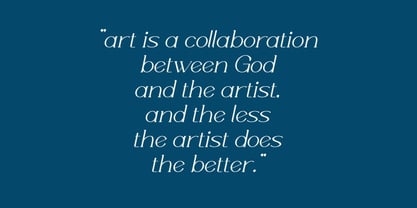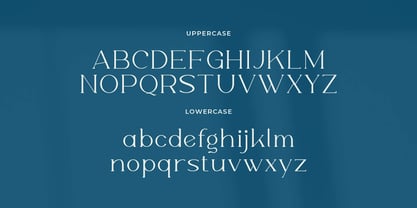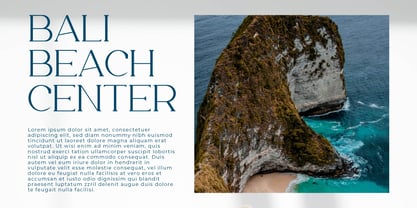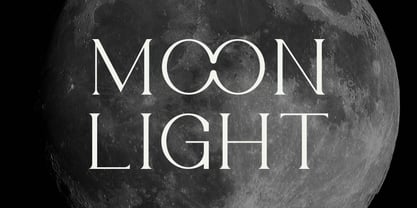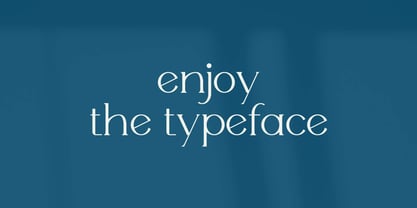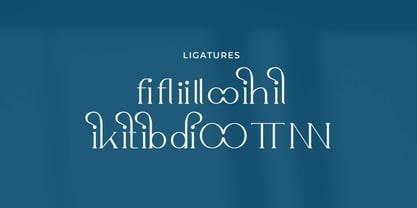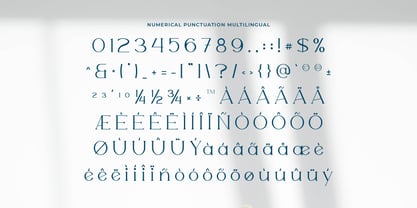
Willy Moody
by Artiveko
The Willy Moody Font Family was designed by Iwan Alwan and published by Artiveko. Willy Moody contains 2 styles and family package options. More about this family
Willy Moody is a delicate minimalist serif font designed to express elegance through simplicity. With soft curves, slender strokes, and thoughtful spacing, this typeface captures a calm, graceful tone — perfect for feminine branding, beauty packaging, wedding invitations, fashion editorials, and modern lifestyle content.
Each character is crafted to reflect both strength and subtlety, creating a perfect balance between refined style and quiet confidence. Willy Moody includes uppercase and lowercase letters, multilingual support, and a charming set of ligatures and stylistic alternates to bring variety and sophistication to your typography.
Whether you're curating a soft aesthetic or building a clean luxury brand, Willy Moody delivers elegance with effortless flow. Let your message feel poised, stylish, and timeless — with Willy Moody, the serif font where femininity meets minimalist modern.